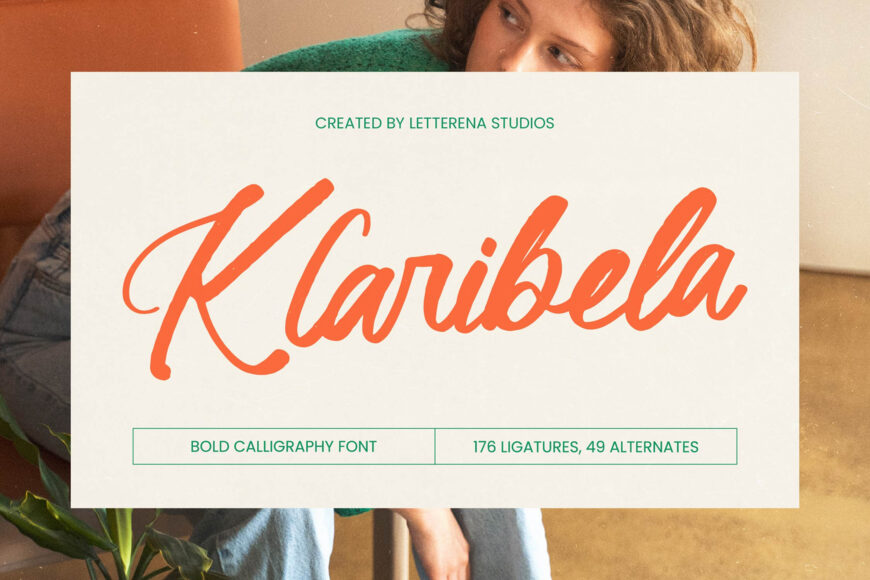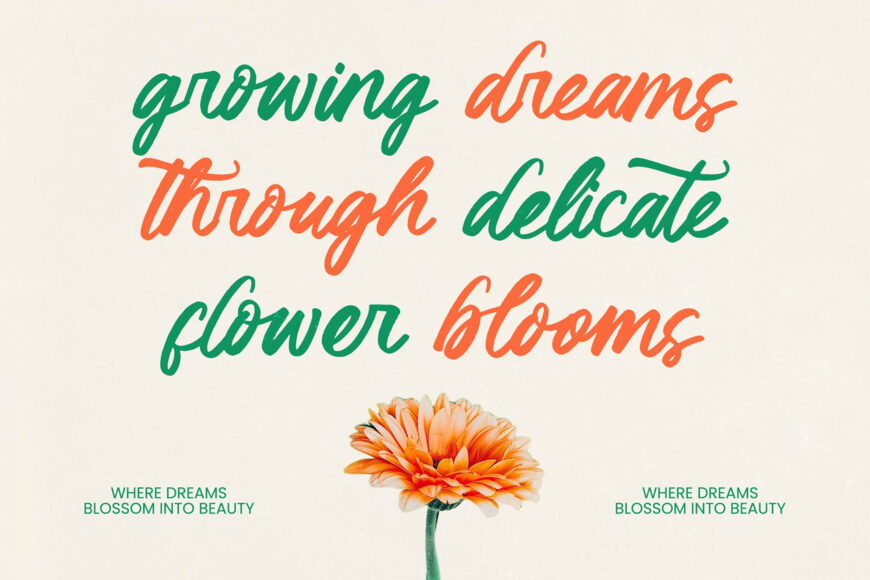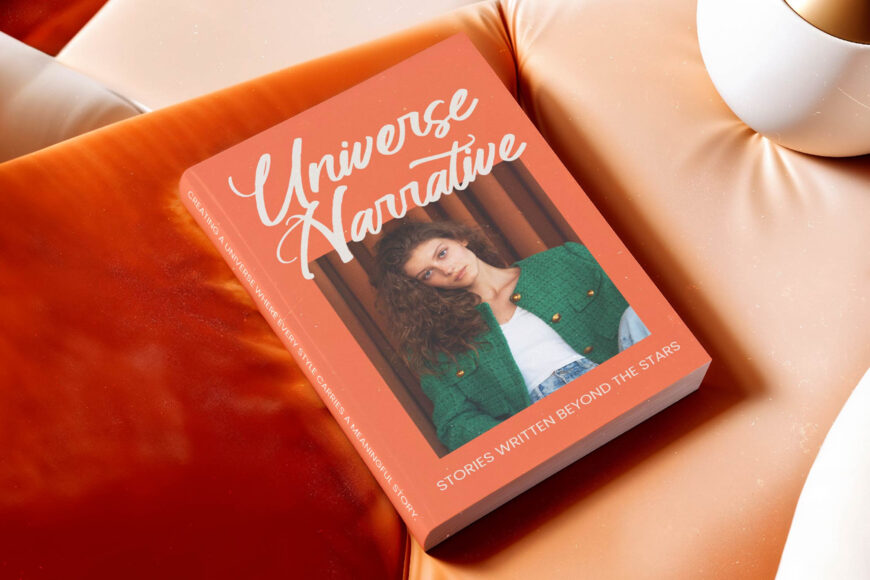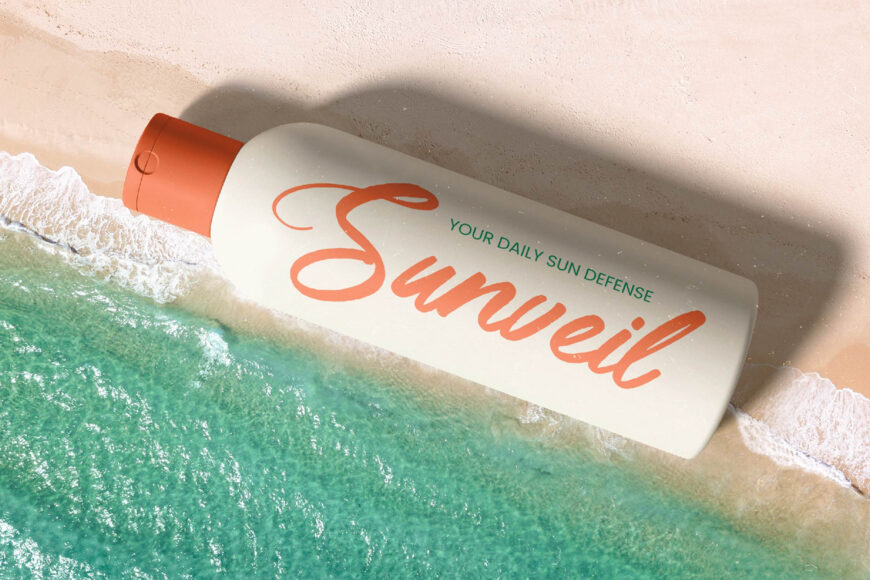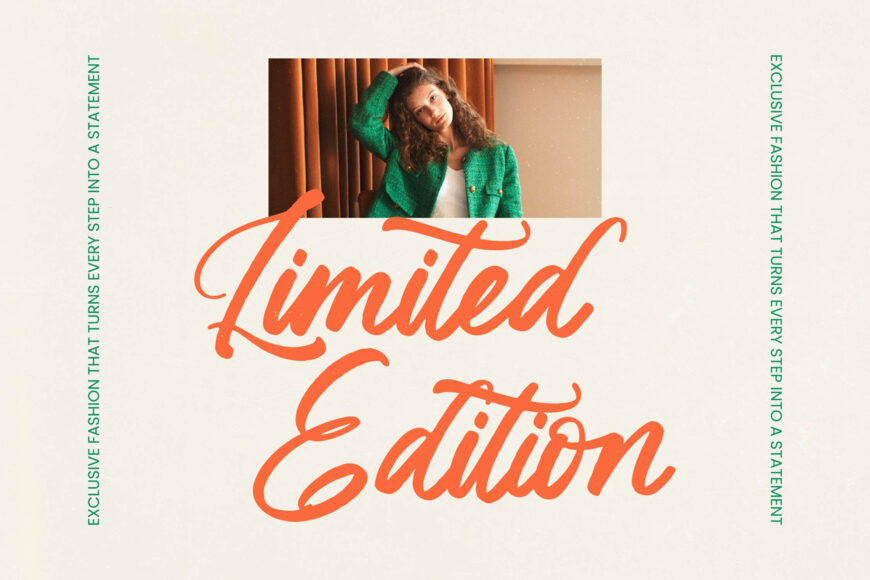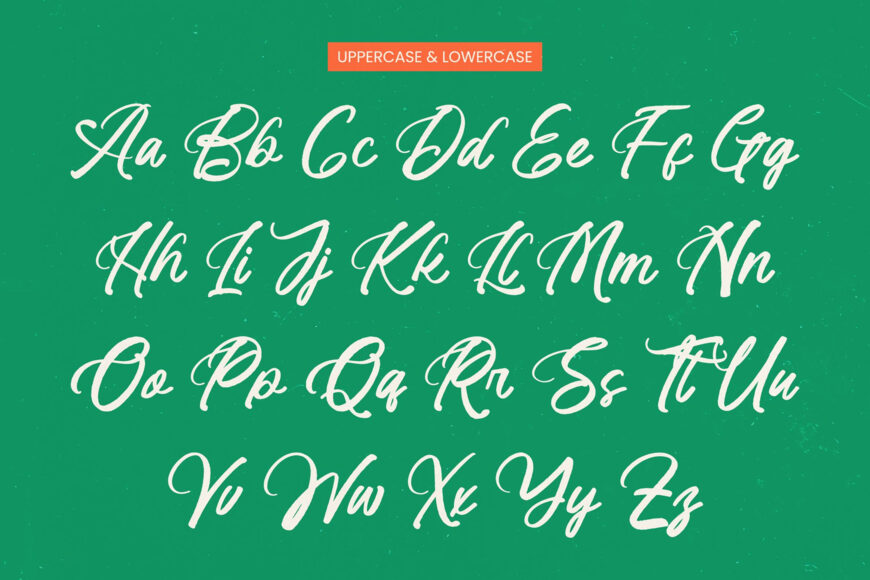
Klaribela Font
Elevate your design with a sophisticated, hand-crafted font. Klaribela offers a commanding presence with its rhythmic flow and robust weight. This high-impact script features fluid strokes and an organic texture, capturing attention instantly.
With 176 ligatures and 49 alternates, it provides unparalleled flexibility for custom lettering, making it perfect for creating unique, professional layouts. Its multilingual support also makes it versatile for international projects, ensuring a consistent brand message worldwide.